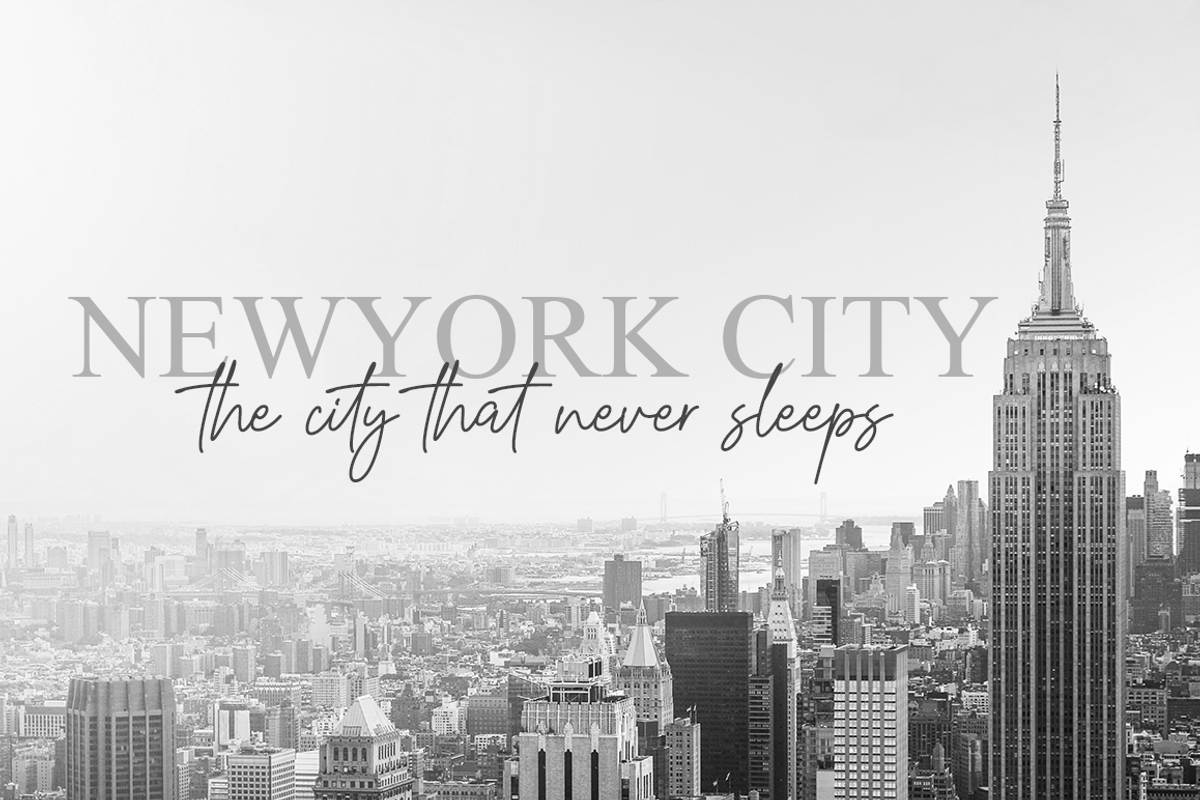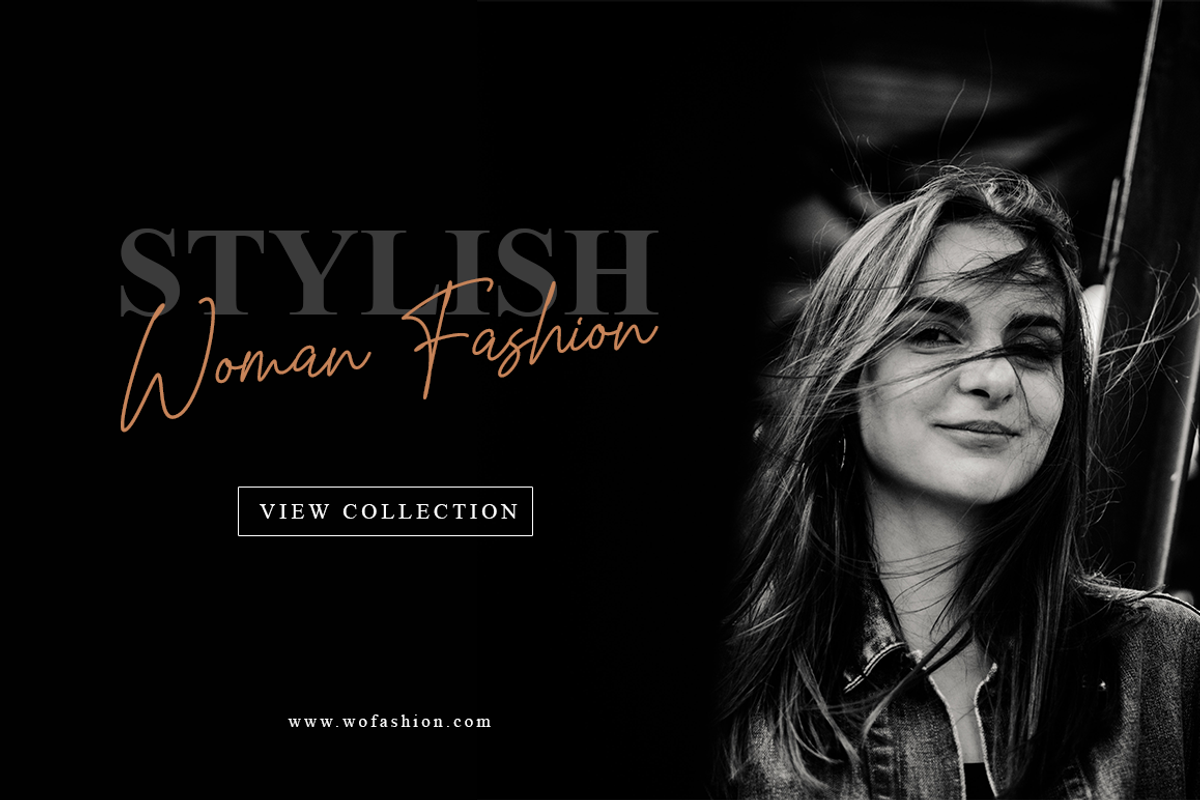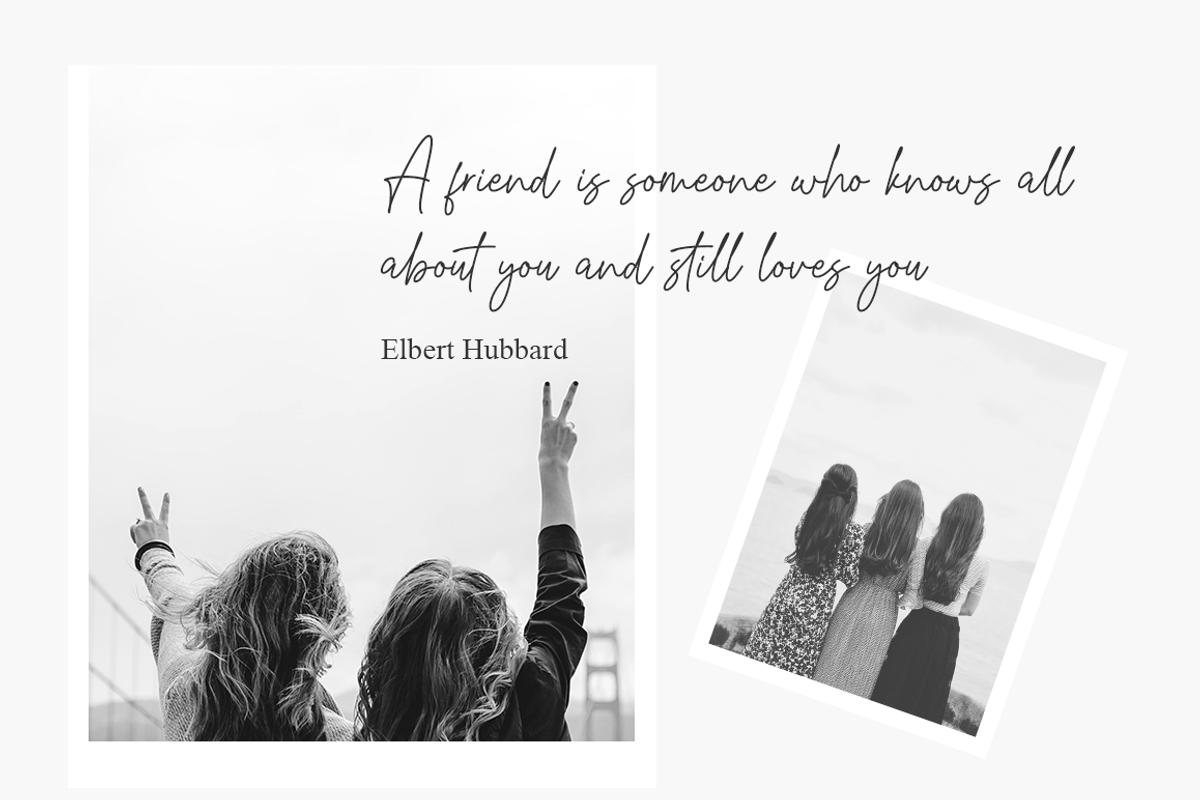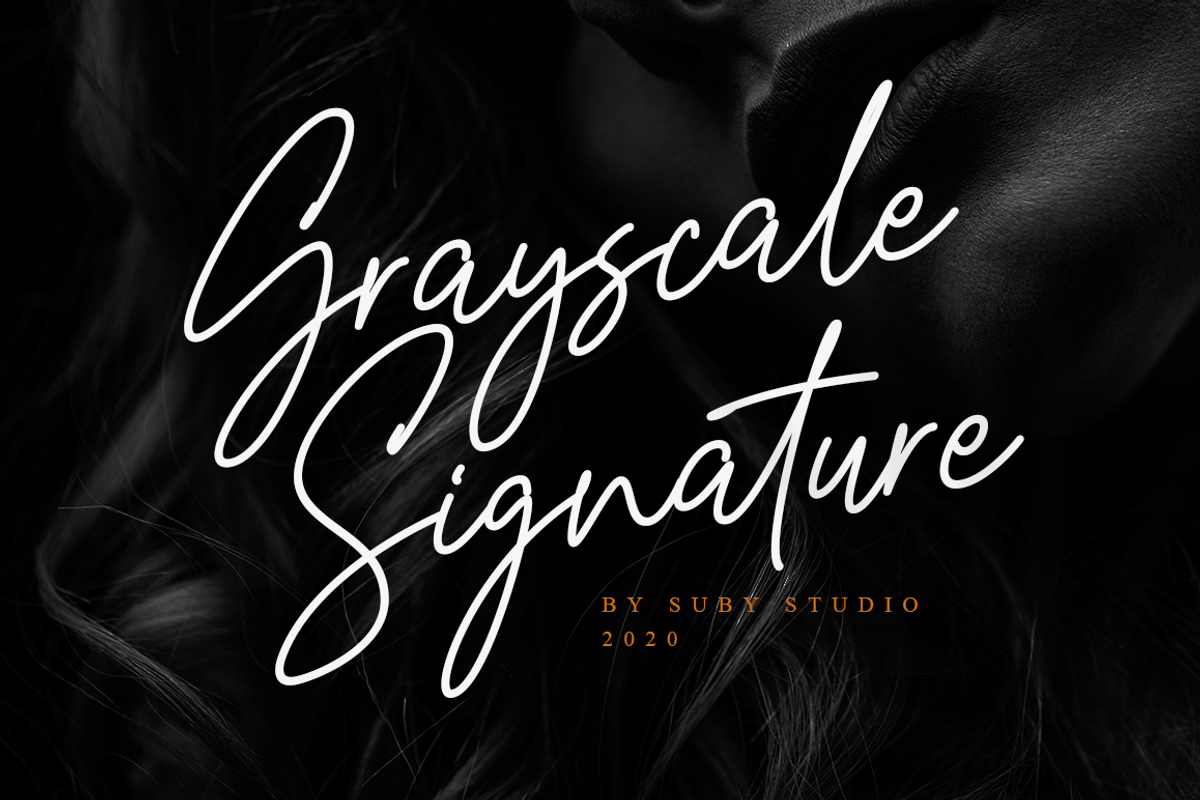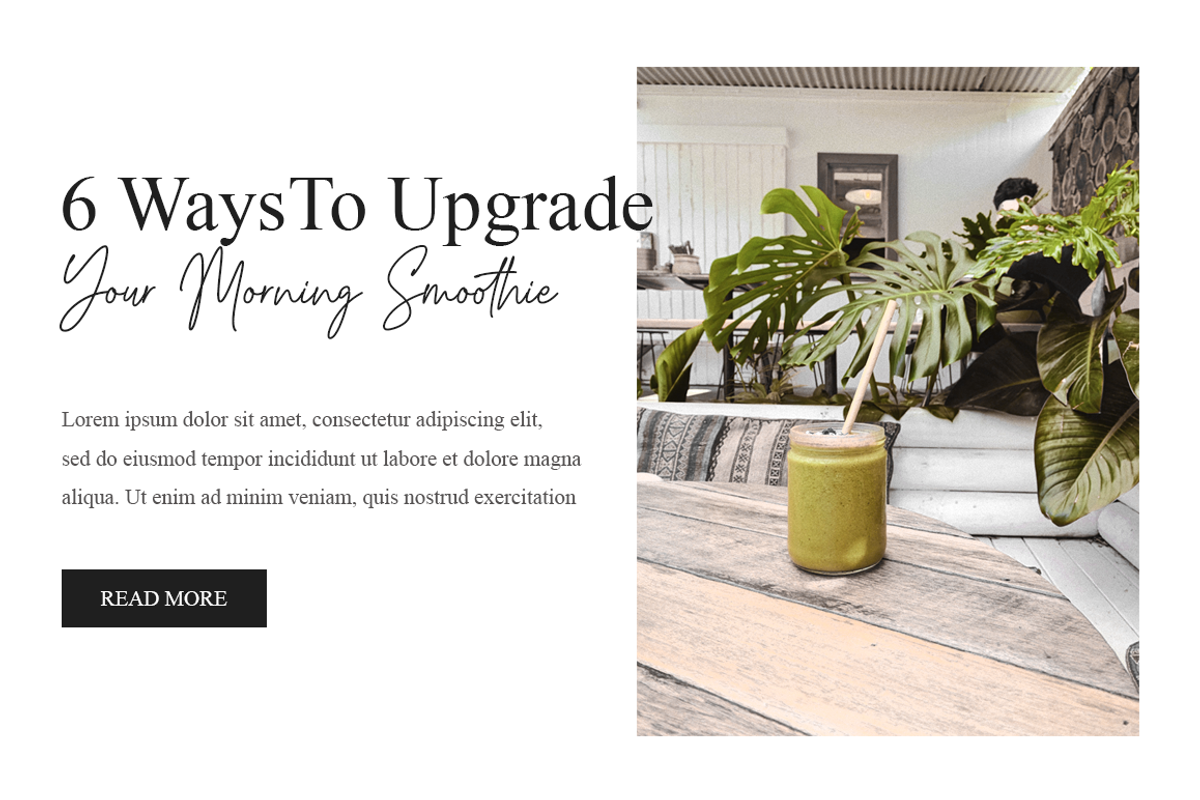
Grayscale Signature
Grayscale Signature is handwritten signature with unique and elegant style. It is perfect or any signature, namecard design, branding projects, product packaging, quotes, logos, book covers, and many other awesome projects. With the combination of elegant and casual style. this font also multilingual support